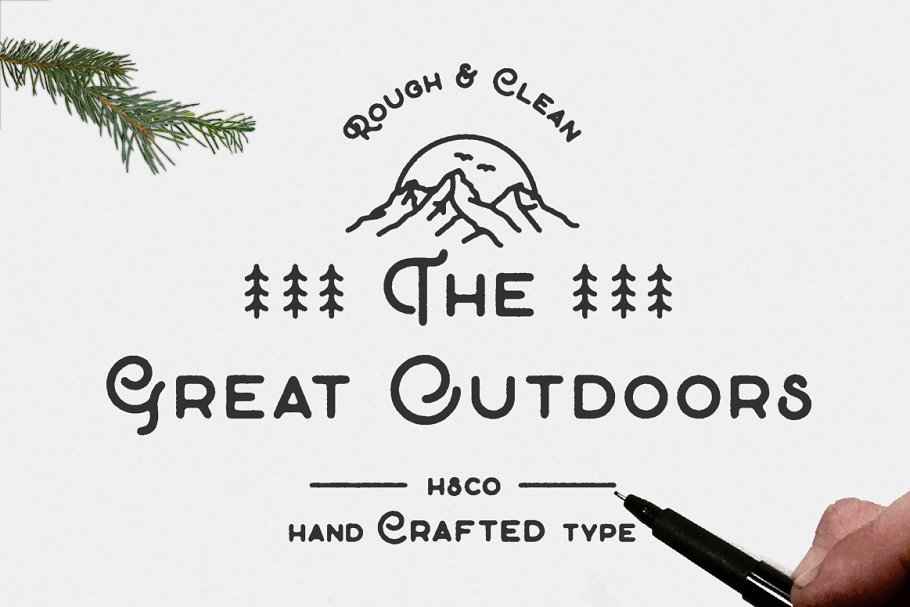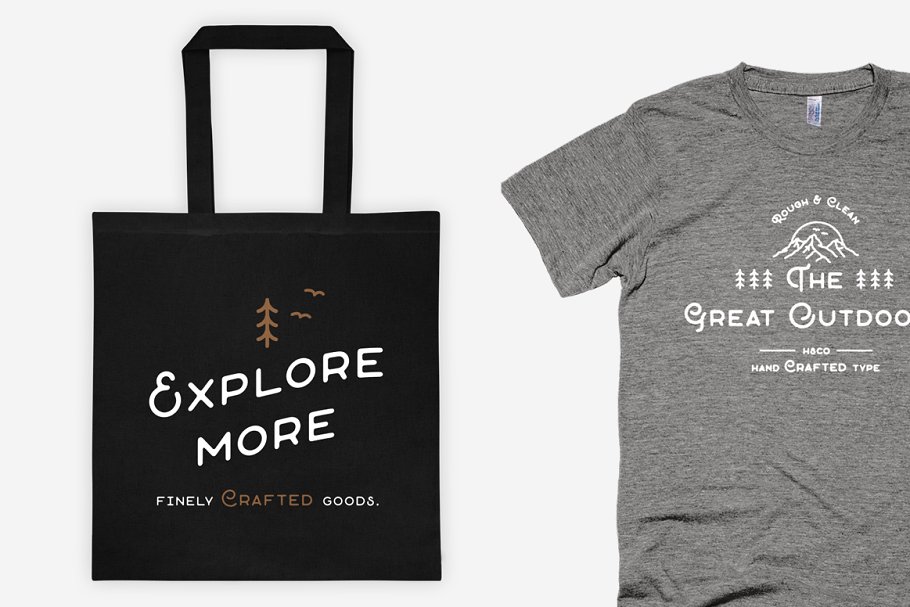
About the The Great Outdoors Font
Introducing, The Great OutdoorsThis versatile typeface comes in 2 styles; clean & rough, The Great Outdoors also comes with a full range of Western European Characters! Looking like a Cursive & Sans Serif typeface mashed together, it has a modern look that’s perfect for Titling & Branding, This will be a great addition to your collection!